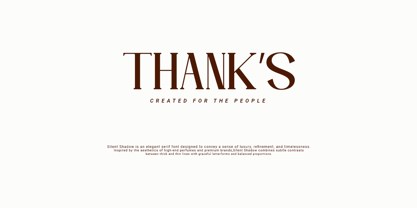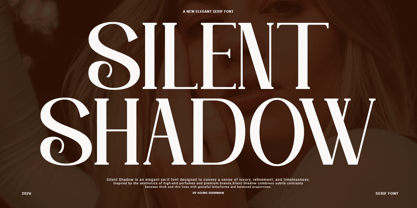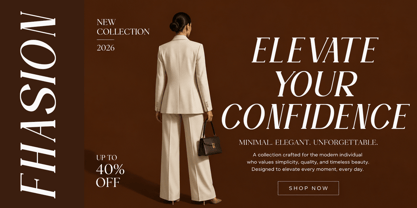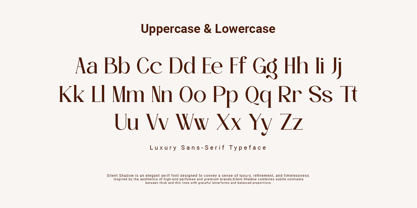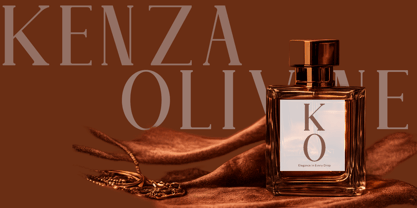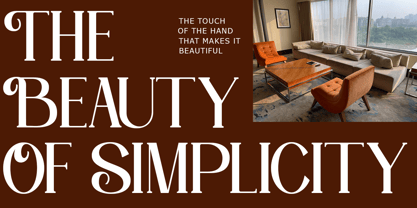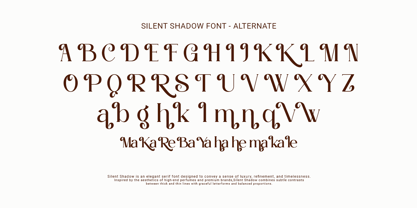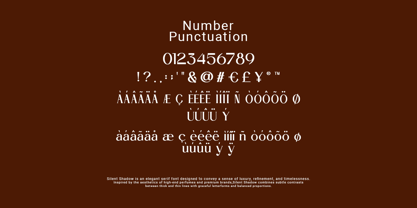
Silent Shadow
by Agung Sudirman
Silent Shadow is a luxurious serif typeface designed to capture the essence of timeless elegance and modern sophistication. Inspired by classic editorial typography and refined fashion aesthetics, this font blends graceful curves, sharp contrasts, and delicate details to create a truly premium visual experience. Every character is carefully crafted to deliver beauty, confidence, and exclusivity, making Silent Shadow the perfect choice for luxury branding, high-end fashion logos, magazine headlines, wedding invitations, cosmetic packaging, jewelry branding, hotel identities, and elegant social media designs.
With its sophisticated serif structure and artistic letterforms, Silent Shadow brings a graceful balance between classic charm and contemporary style. The font features smooth transitions, stylish ligatures, and elegant proportions that create a strong visual presence while maintaining readability and refinement. Whether used in large display titles or minimal branding layouts, Silent Shadow adds a luxurious and professional atmosphere to every design project.
Silent Shadow is ideal for designers who want to create a bold yet graceful identity. The font performs beautifully across both print and digital media, making it suitable for posters, editorial layouts, premium packaging, product labels, website headers, business cards, and boutique branding. Its elegant appearance allows it to stand out effortlessly while still feeling soft, fashionable, and timeless.
Crafted with attention to detail, Silent Shadow embodies sophistication, beauty, and modern luxury in every letter. The font is perfect for creative professionals seeking an exclusive serif typeface with a stylish personality and a premium aesthetic. Whether you are building a luxury fashion campaign, designing an elegant logo, or creating a stylish social media template, Silent Shadow delivers a refined and unforgettable visual impression that elevates every creative project with class and elegance.